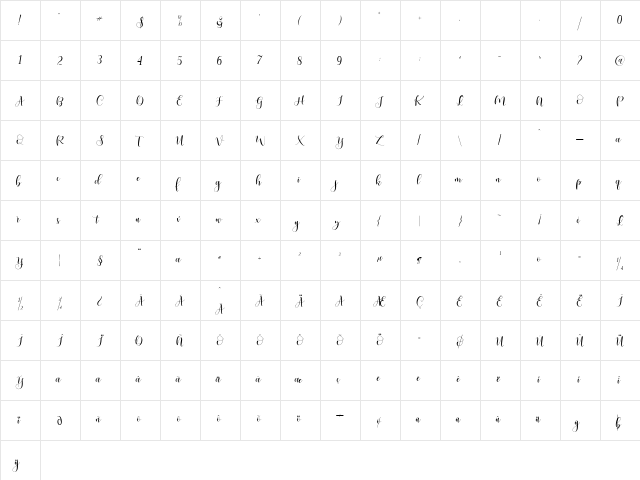
Ladies Script Regular
Design Context for Ladies Script Typeface
Ladies Script flows with the natural rhythm of handwritten lettering, making it ideal for designs that call for warmth and personal expression.
Font Pairing: Combine Ladies Script with a simple geometric sans for maximum contrast — the tension between flowing curves and clean structure is a classic typographic pairing.
Pro Tip: Pair Ladies Script with a clean sans-serif for supporting text. The contrast between fluid script and geometric structure creates an elegant typographic hierarchy.